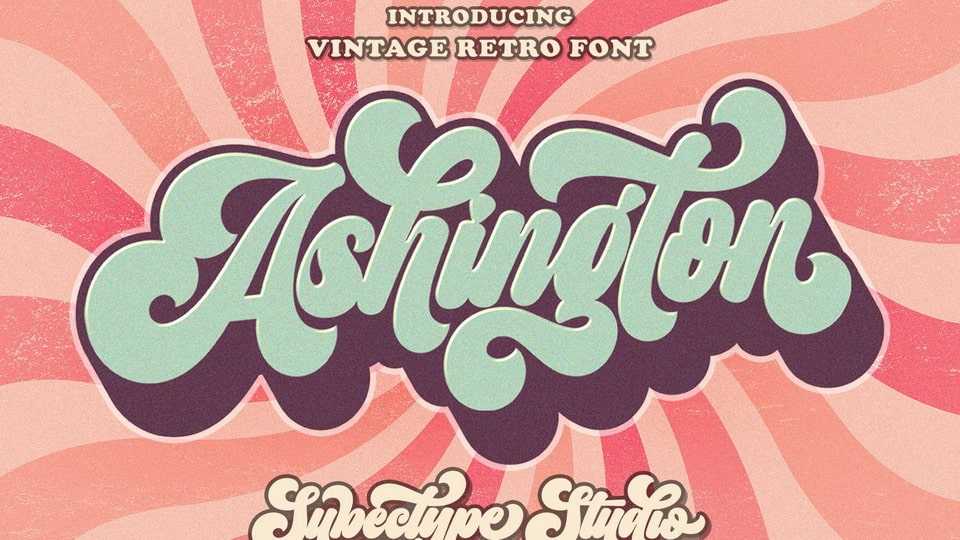
Download Ashington font, a vintage script typeface. Ashington is inspired from retro typography and lettering in the 70’s and 80’s combine with bold typography style.